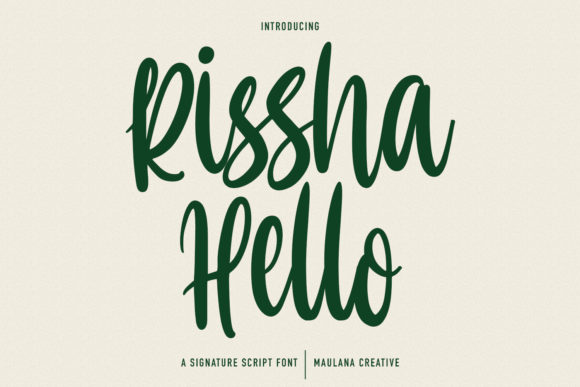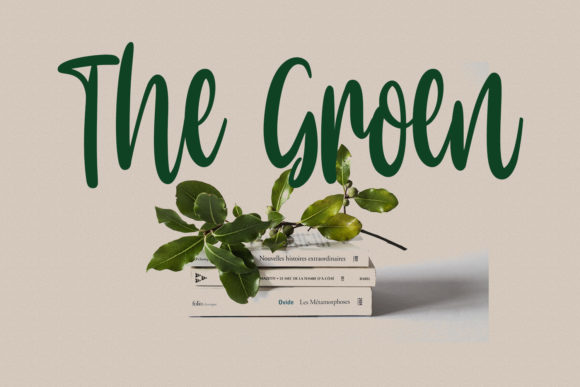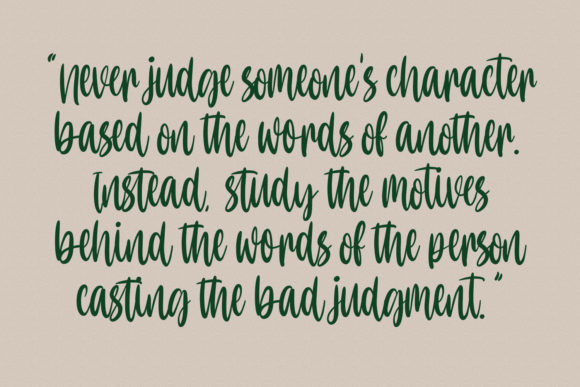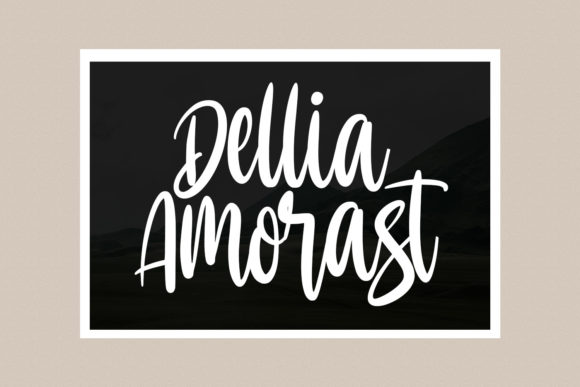
About Hello Rissha Font
“Hello Rissha” welcomes you with its fancy handwritten script font, adorned with a captivating blend of medium contrast strokes, playful characters, intricate ligatures, and charming alternates. As you explore the depths of “Hello Rissha,” you’ll discover a font that embodies a perfect balance of style and creativity. Confidently integrate it into your projects, and brace yourself for results that are bound to leave you enchanted.
Visualize “Hello Rissha” as a brush dipped in elegance, elegantly painting your designs with its unique flair. The medium contrast strokes infuse a sense of balance and harmony, while the playful characters add a touch of whimsy. As you weave this font into your creations, you’ll embark on a journey where your concepts evolve into captivating visual narratives.
Beyond its visual charm, “Hello Rissha” captures an essence of artistic ingenuity. Its ligatures and alternates offer a playground for creativity, allowing you to craft designs that go beyond the ordinary. Each character contributes to the vibrant canvas of your creative vision.
“Hello Rissha” emerges as an indispensable tool in your design arsenal. Its versatility enables it to harmonize effortlessly with various styles, themes, and intentions. Whether you’re seeking to create eye-catching headlines, captivating logos, or intriguing branding, this font elevates the impact of your message.
In a world where design speaks volumes, “Hello Rissha” becomes your vehicle for crafting designs that resonate deeply and leave an indelible mark. Let its fancy strokes be the artistic embellishments that enhance your creations, infusing them with a touch of uniqueness and charm. Embrace the creative essence of “Hello Rissha” and watch as it transforms your projects into captivating showcases of artistry, resonating with all who engage with them.